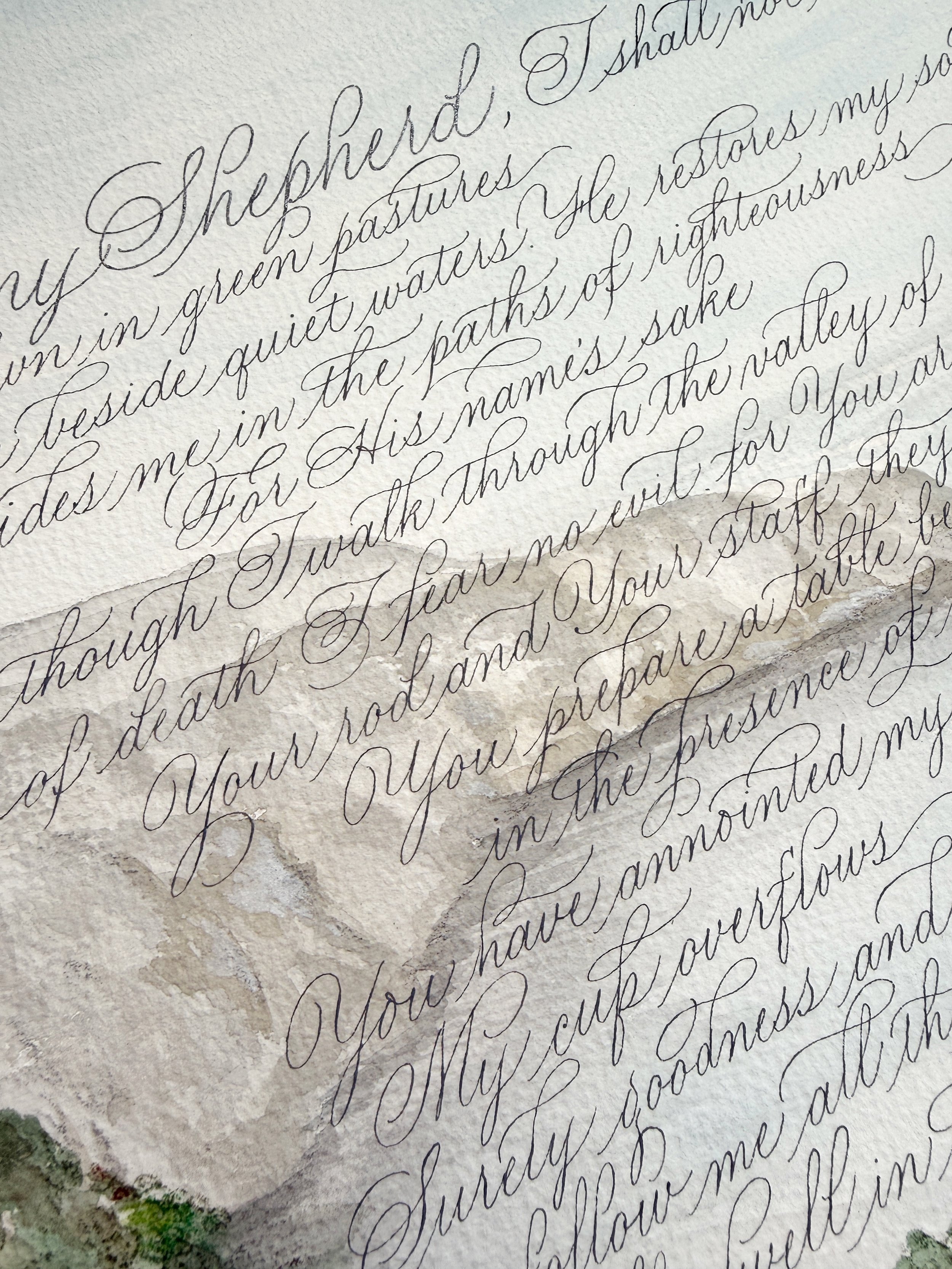
YOUNGHAE CHUNG | "In Remembrance" – Psalm 23
TITLE | "In Remembrance" – Psalm 23
MEDIUM | Watercolor & ink
Psalm 23 holds deep personal meaning for the artist, being her parents’ favorite passage. She read it with them often during their hospice care, where its words brought peace and comfort in their final days. The background is inspired by a photograph from their last family trip to Channel Island, merging memory, faith, and place into a tender act of remembrance.
Younghae Chung
Younghae Chung is a calligrapher and educator based in California, USA. Her introduction to Italic calligraphy began in 2005 through a college elective, sparking a long-term interest in letterforms. She deepened her studies with her first Copperplate workshop in 2014 and has since continued refining her skills through ongoing training and community involvement. With a passion for keeping penmanship alive, Younghae focuses on teaching both in-person and online, sharing the craft with students and helping nurture the next generation of calligraphers.